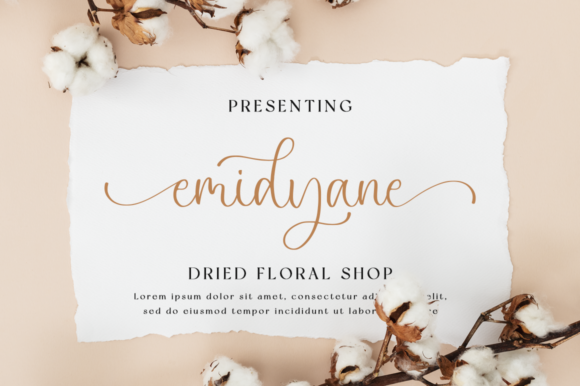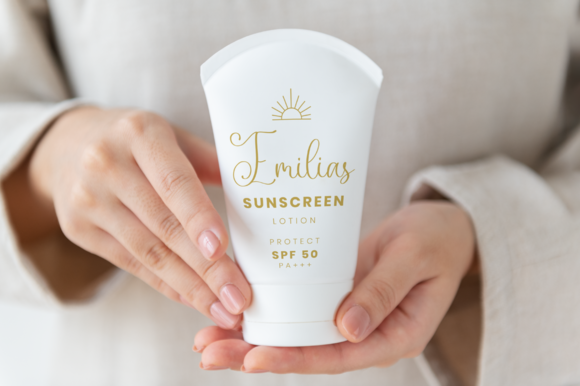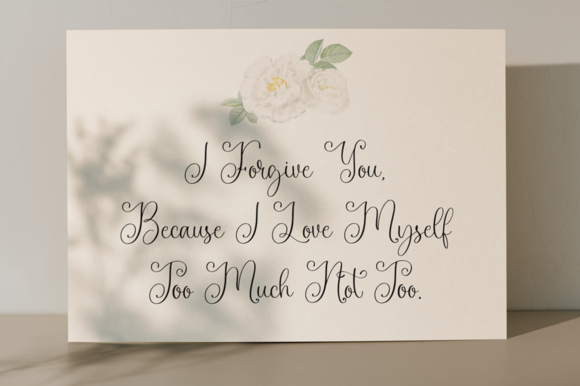
Introduction to Moveline Font
Have you ever been stuck on a design project, searching for the perfect font to elevate your creative vision? You know the feeling – like you’re missing a crucial puzzle piece that brings your entire design together. For many designers, this is a familiar experience, and that’s where the Moveline Font comes in – a beautiful script font that’s sure to give your projects an elegant and modern touch.
As a valuable design resource, Moveline Font is perfect for any creative project, from logos and branding to invitations and wedding designs. Its refined style is not only visually appealing but also versatile, making it an excellent choice for a wide range of design applications.
With its high-quality design and transparent background, Moveline Font is a free download that’s sure to become a go-to resource for designers. Whether you’re working on a personal project or a client’s design, this font is a must-have for anyone looking to add a touch of sophistication to their work.
Key Features of Moveline Font
- High-quality design resource for creative projects: Moveline Font is a unique and elegant font that can elevate any design, making it perfect for use in various creative projects.
- Transparent background: The font has a transparent background, allowing you to easily layer it over other design elements and create visually appealing compositions.
- High-resolution design: The font is designed at a high resolution (300 DPI), ensuring that it looks crisp and clear even when scaled up or down.
- Perfect for digital and print projects: Moveline Font is suitable for use in both digital and print projects, making it a versatile design resource.
Honest Review: Moveline Font
I recently had the chance to work with the Moveline Font for a creative project and I must say it was a great experience. The font is free to download, which is always a bonus when it comes to design resources. The quality is high, with crisp lines and a transparent background that makes it easy to use on any design.
Here are some things that work well with the Moveline Font: ✨
- High-quality design: The font is well-designed and looks great on any project.
- Easy to use: The transparent background makes it easy to use on any design.
However, there are a few limitations to keep in mind: ⚠️
- Limited font styles: The font only comes in a few styles, which may not be suitable for all projects.
- No bold or italic versions: This may make it difficult to use the font for emphasis or highlighting.
Overall, I was impressed with the Moveline Font and would recommend it to designers who are looking for a high-quality, free design resource. It’s perfect for creative projects where a clean and simple design is needed.
Moveline Font
Tips for Getting the Most Out of Moveline Font
Moveline Font is a high-quality design resource that is perfect for creative projects. To get the most out of it, try using it with a transparent background to add a touch of elegance to your designs. You can also experiment with different font sizes and styles to create a unique and eye-catching look.
Moveline Font is a versatile font that can be used in a variety of creative projects, including logos, business cards, and social media graphics. It’s also a great font to use for free download and can be used in personal or commercial projects.
Alternatives to Moveline Font